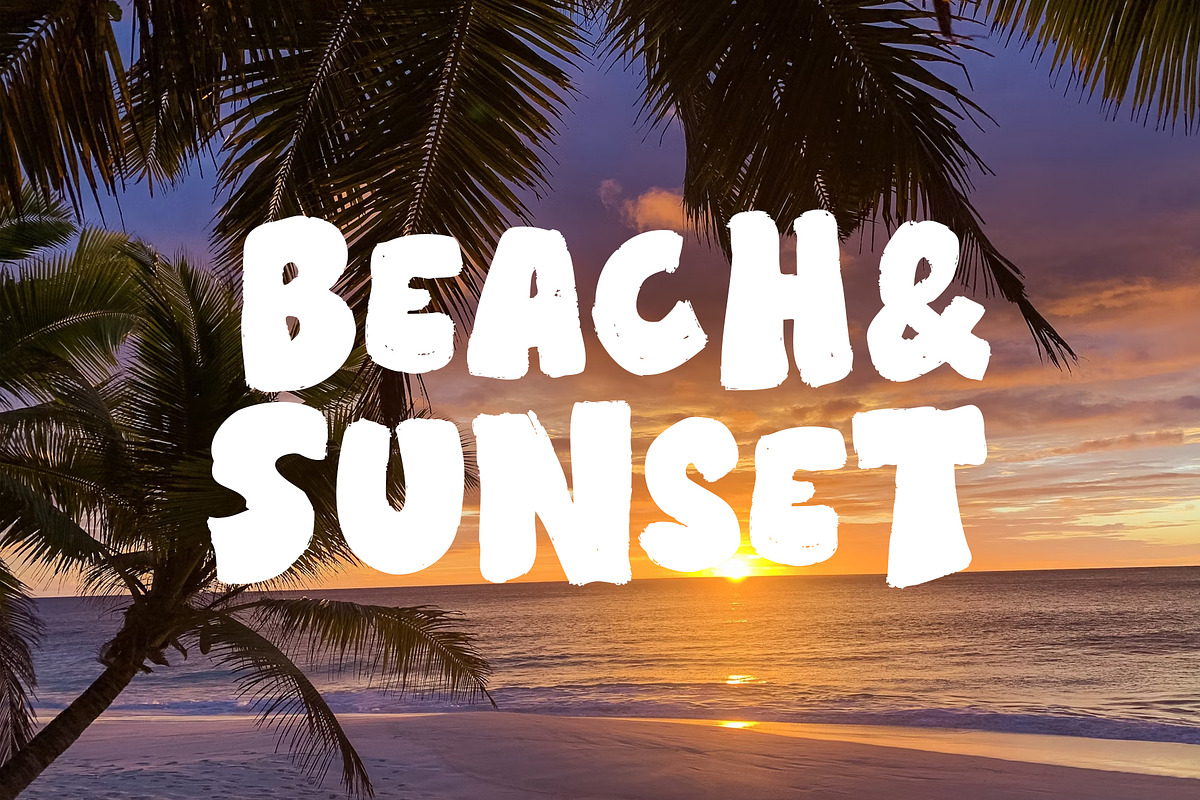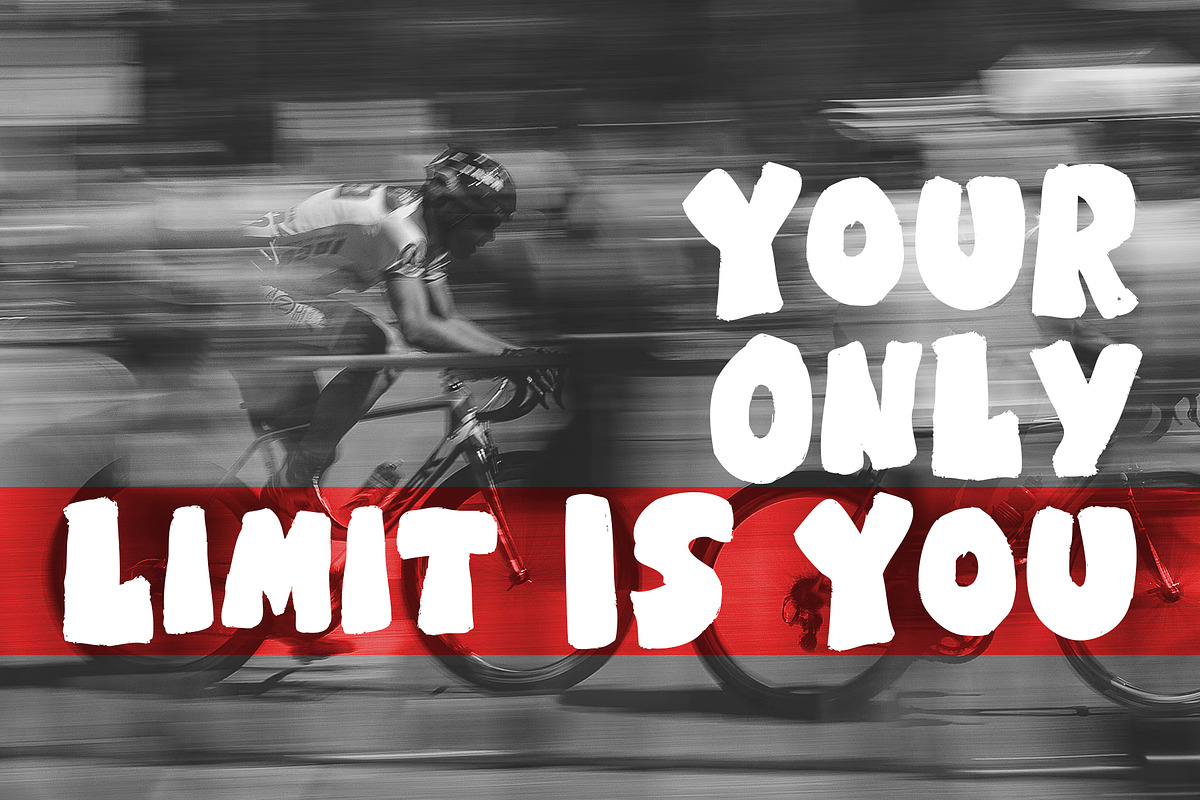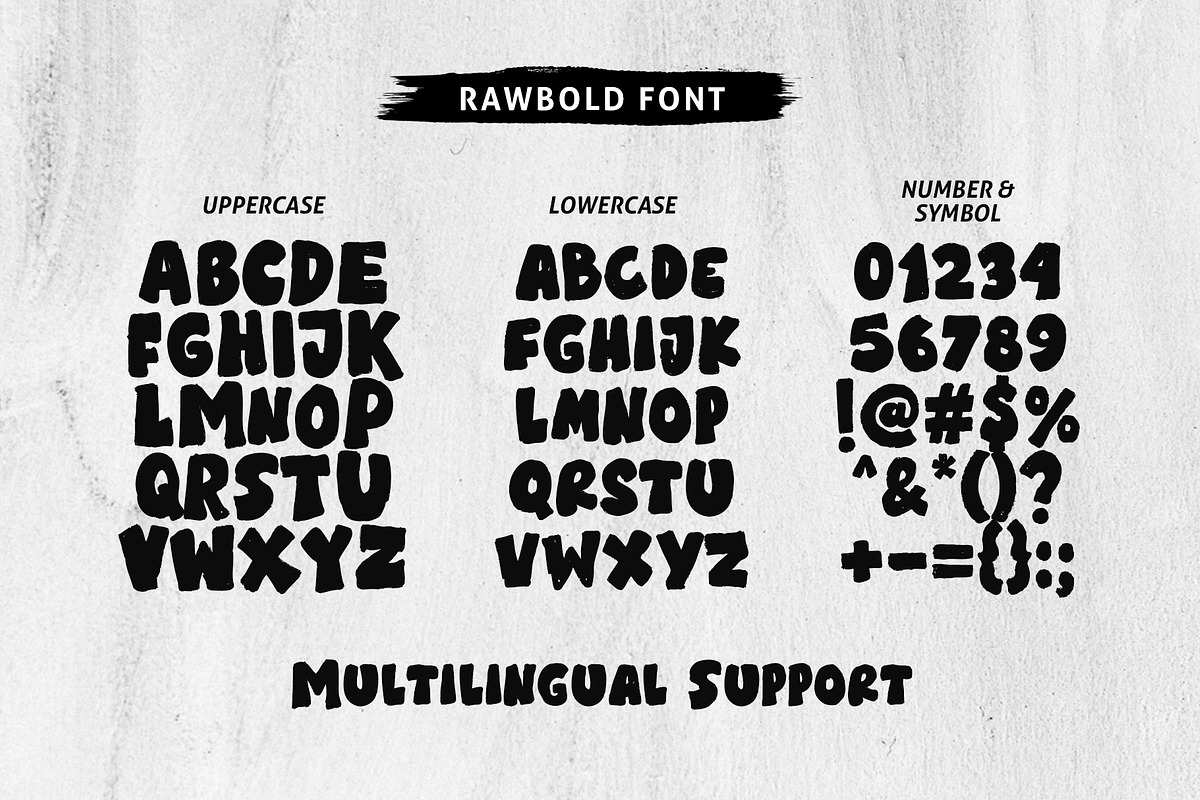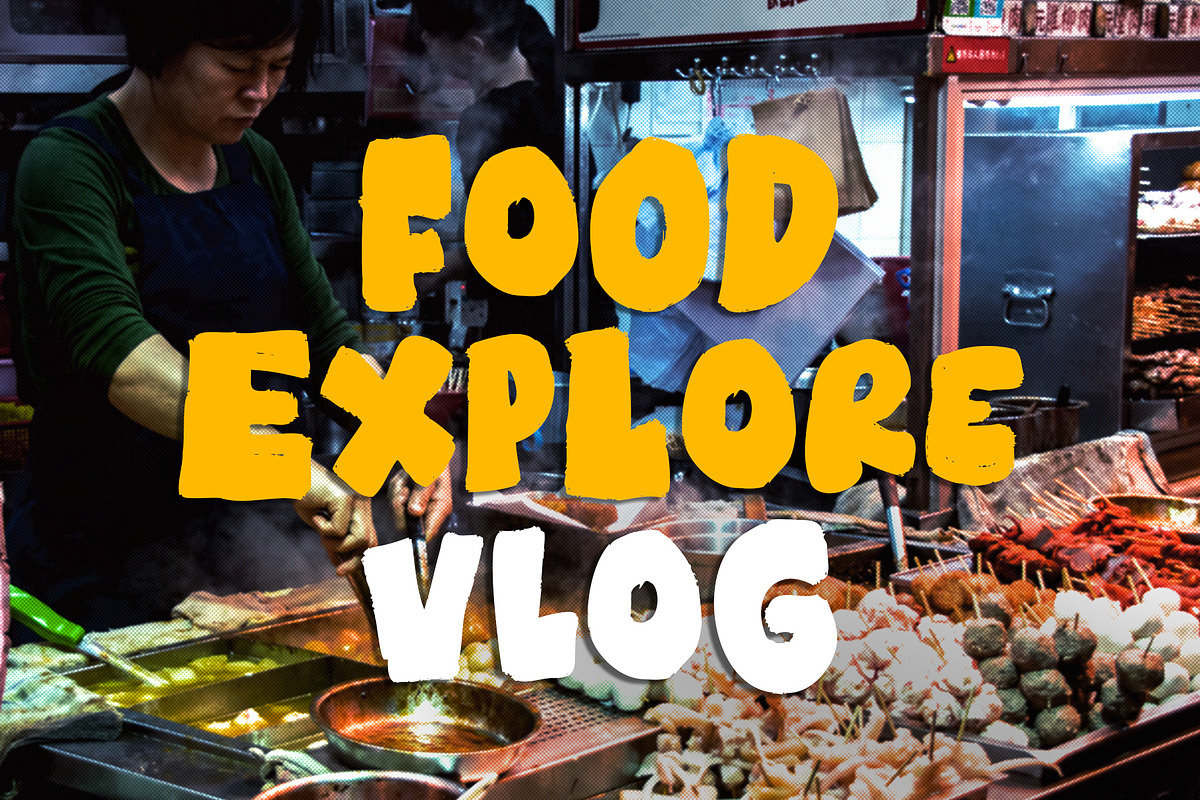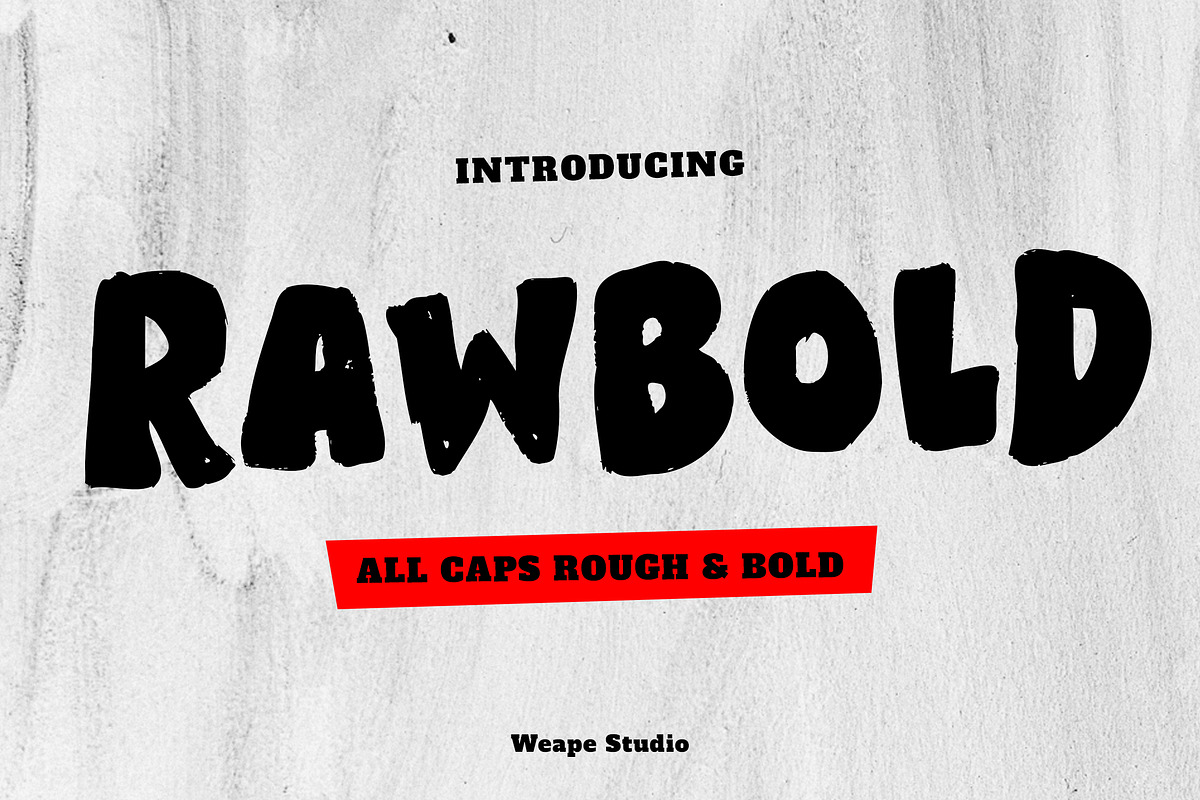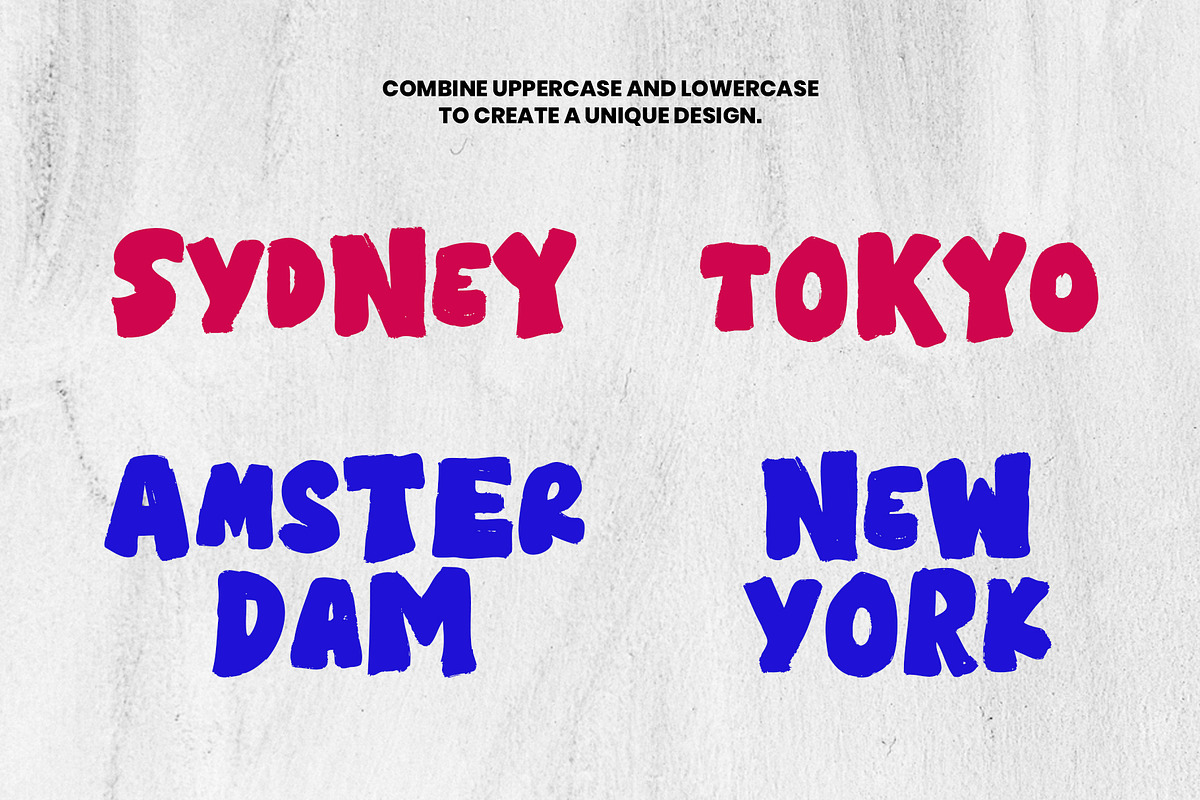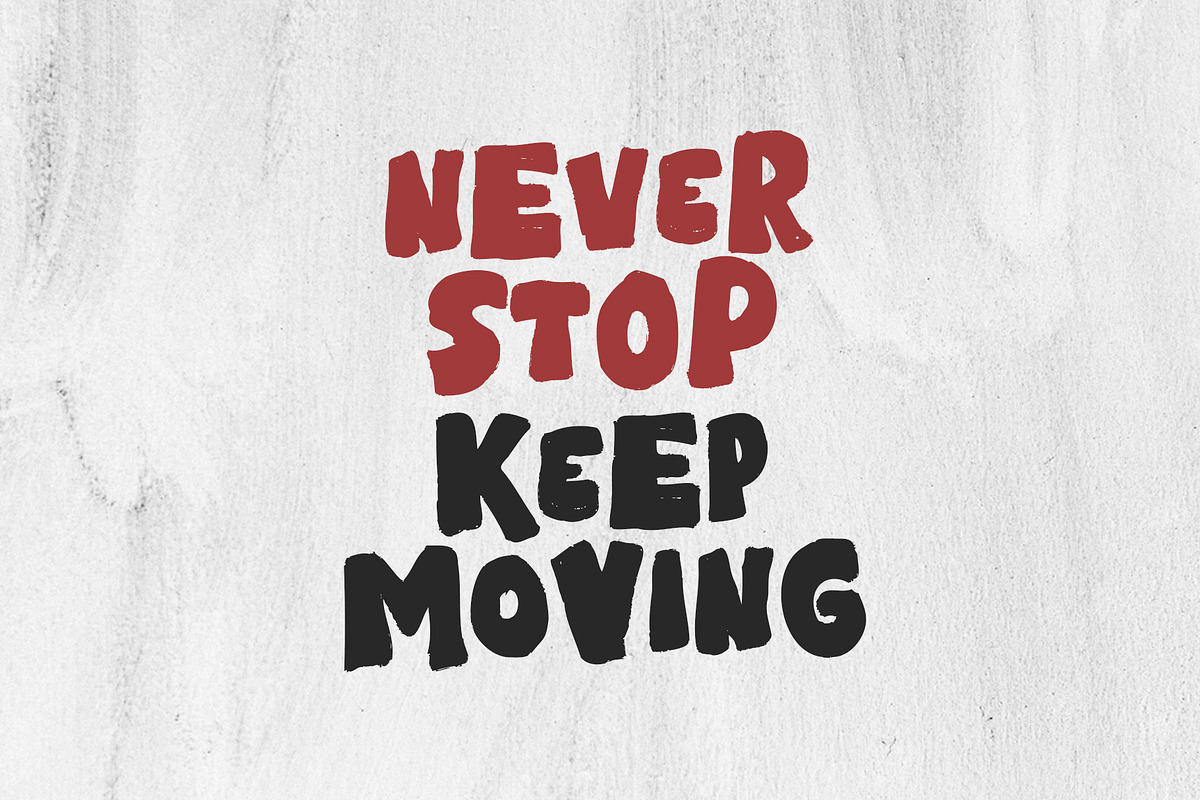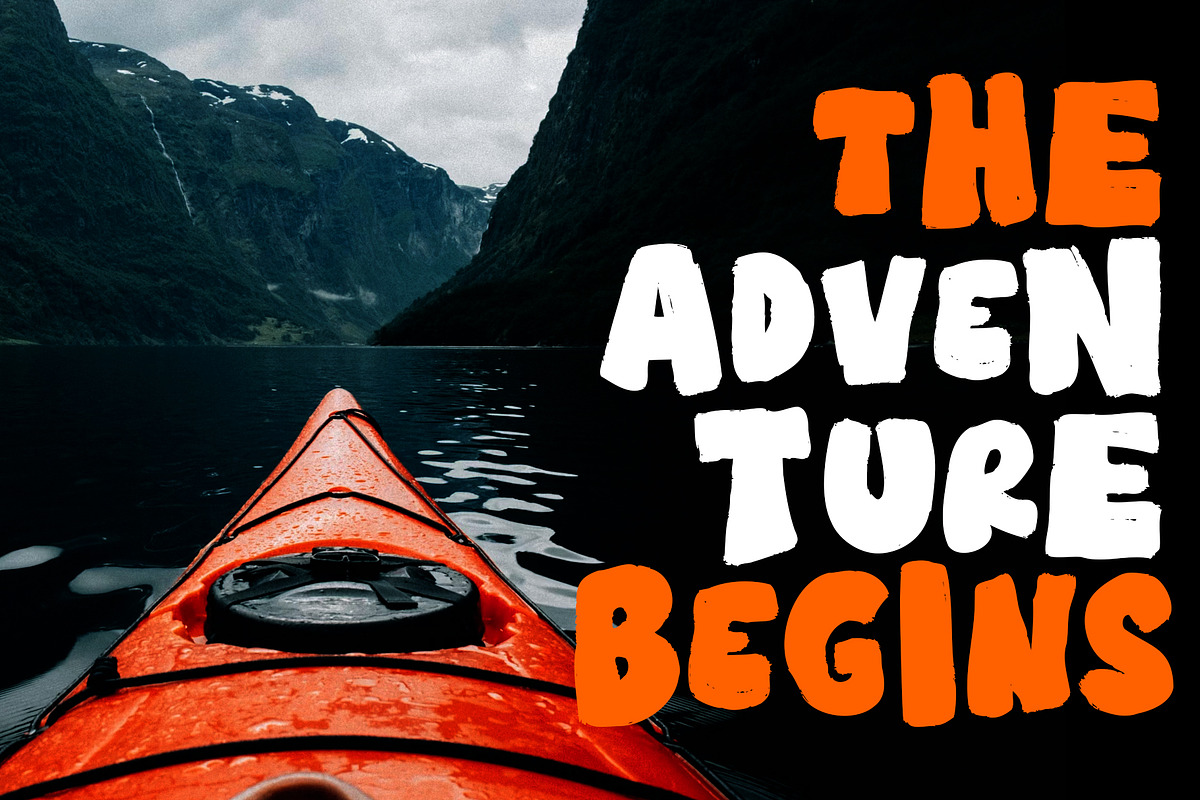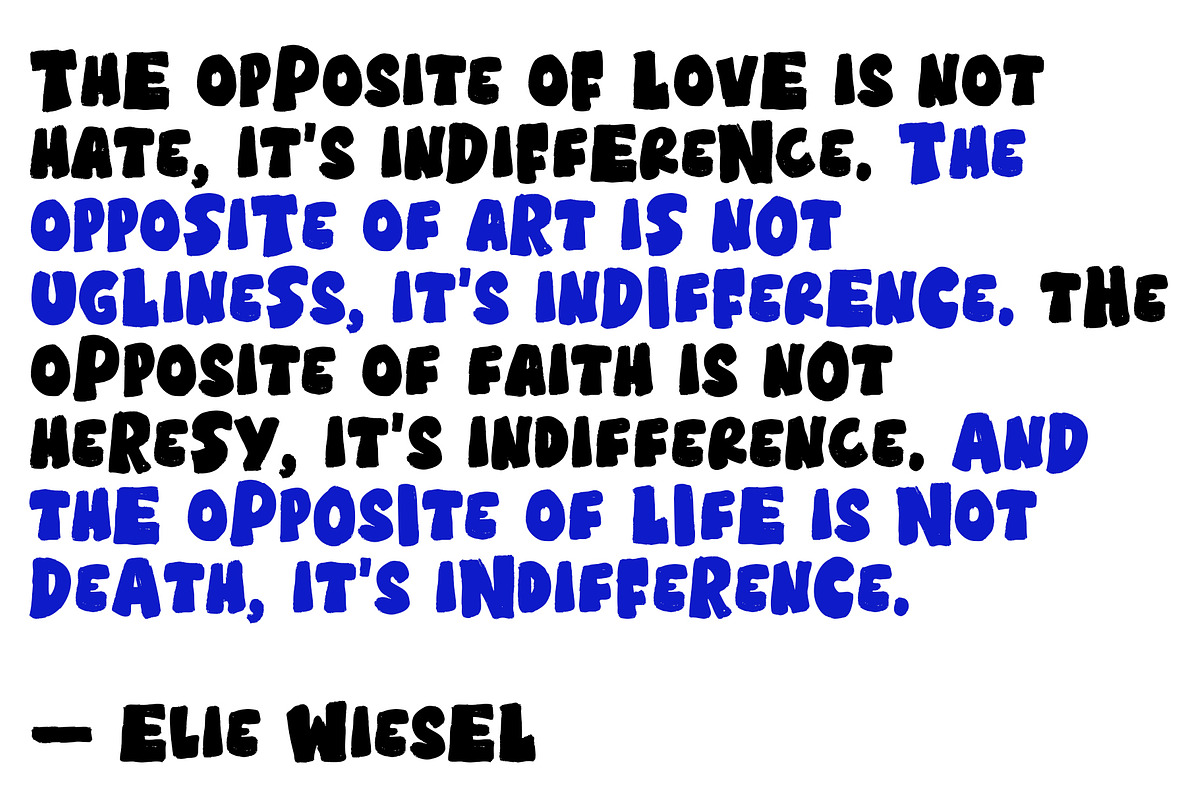
RAWBOLD – Rough & Bold Font
Introducing RAWBOLD – a strong and expressive display font designed to make your text stand out. With its rough texture and bold appearance, this typeface brings a handcrafted, energetic feel to any design. All characters—both uppercase and lowercase—are mapped to powerful, full caps, ensuring a consistent and fearless impact across your work. RAWBOLD shines in posters, branding, headlines, packaging, and any project needing a raw, punchy attitude.
All Caps (Uppercase & Lowercase in Caps)
Bold and Rough Texture
Perfect for Posters, Logos, Book Covers, Greeting Cards, and Display Design